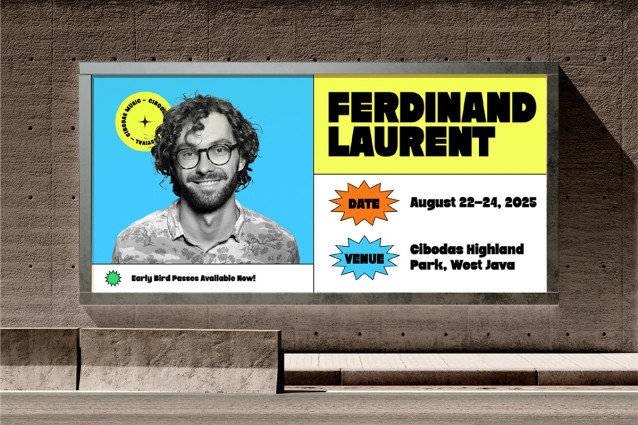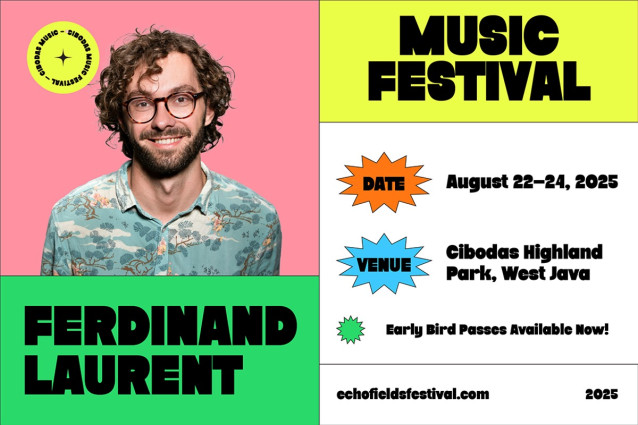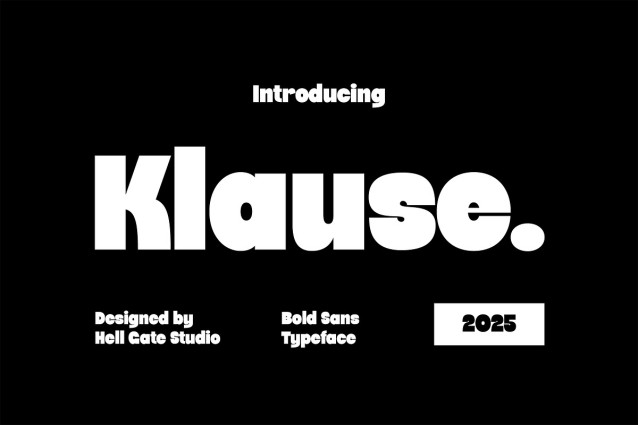
Klause Font
Klause Font. With its elegant theme, Klause Font transcends the norm, amplifying the aura of any design piece. This font is as user-friendly as it is beautiful, boasting easy text and color editing functionalities. Moreover, you can expect nothing less than perfection with the high-quality render file included in OTF format. Join the Klause Font experience and let it uplift your design projects to realms unimagined.